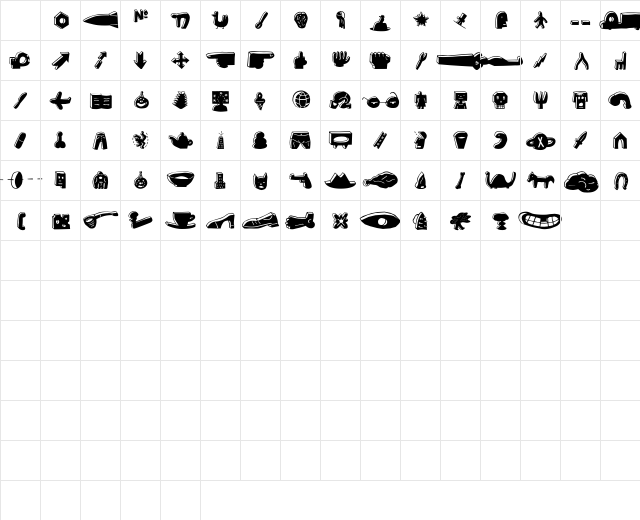
Complete BlockheadIllustFace- Black glyph index. Displaying only characters natively supported by BlockheadIllustFace- Black font.
BlockheadIllustFace- is a composed and adaptable typeface that performs quietly and consistently across a wide range of design contexts.